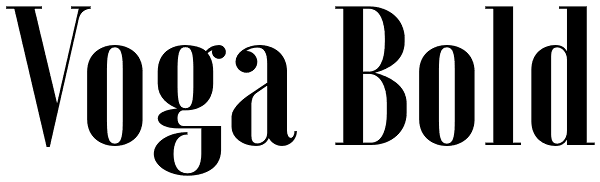
Voga
Meet Voga. Voga is a condensed modern Didone typeface with three weights: Regular, medium and bold. My aim was to create a very elegant and “sexy” typeface with some unique letterforms based on the principle of contrast - curves vs. strong straight...